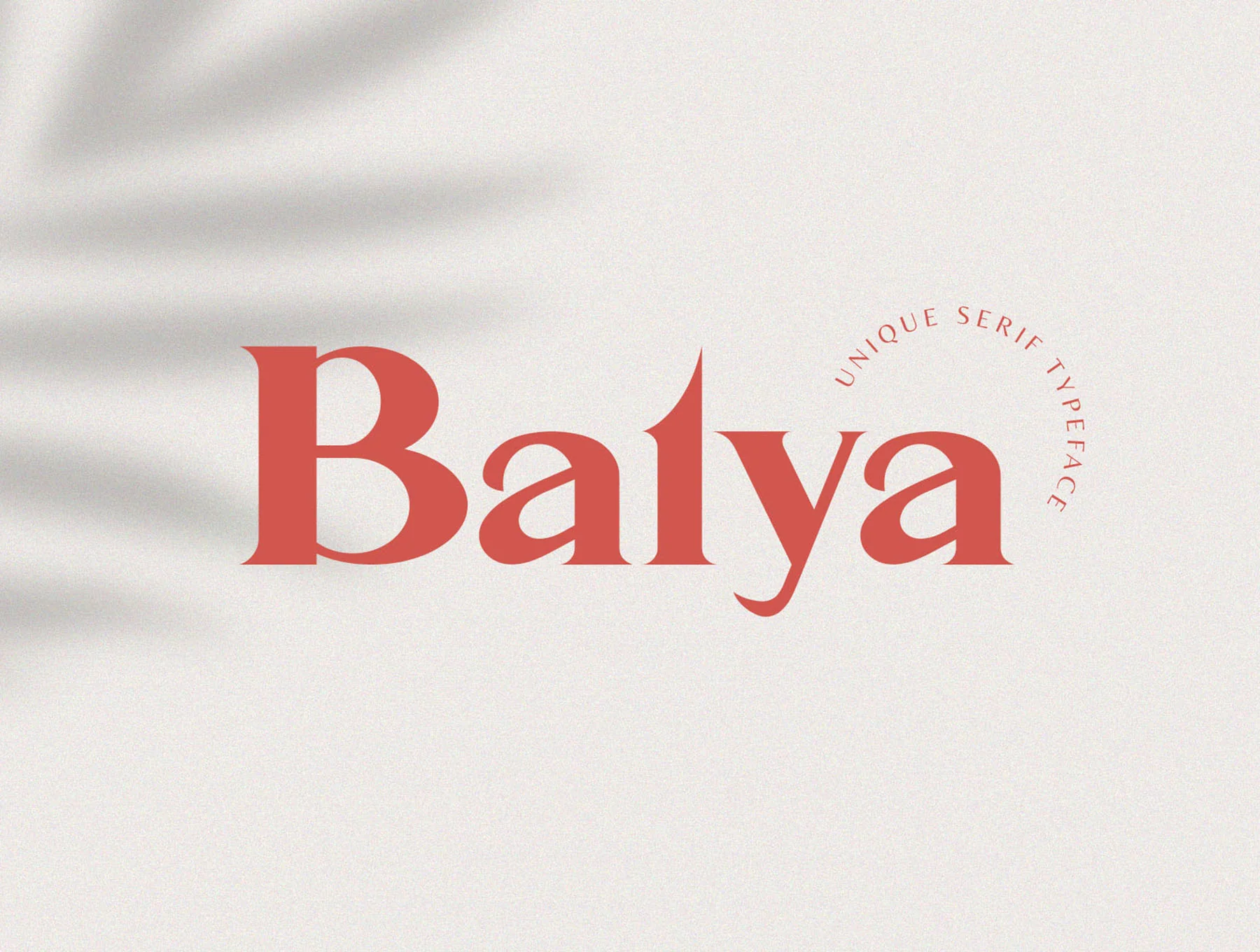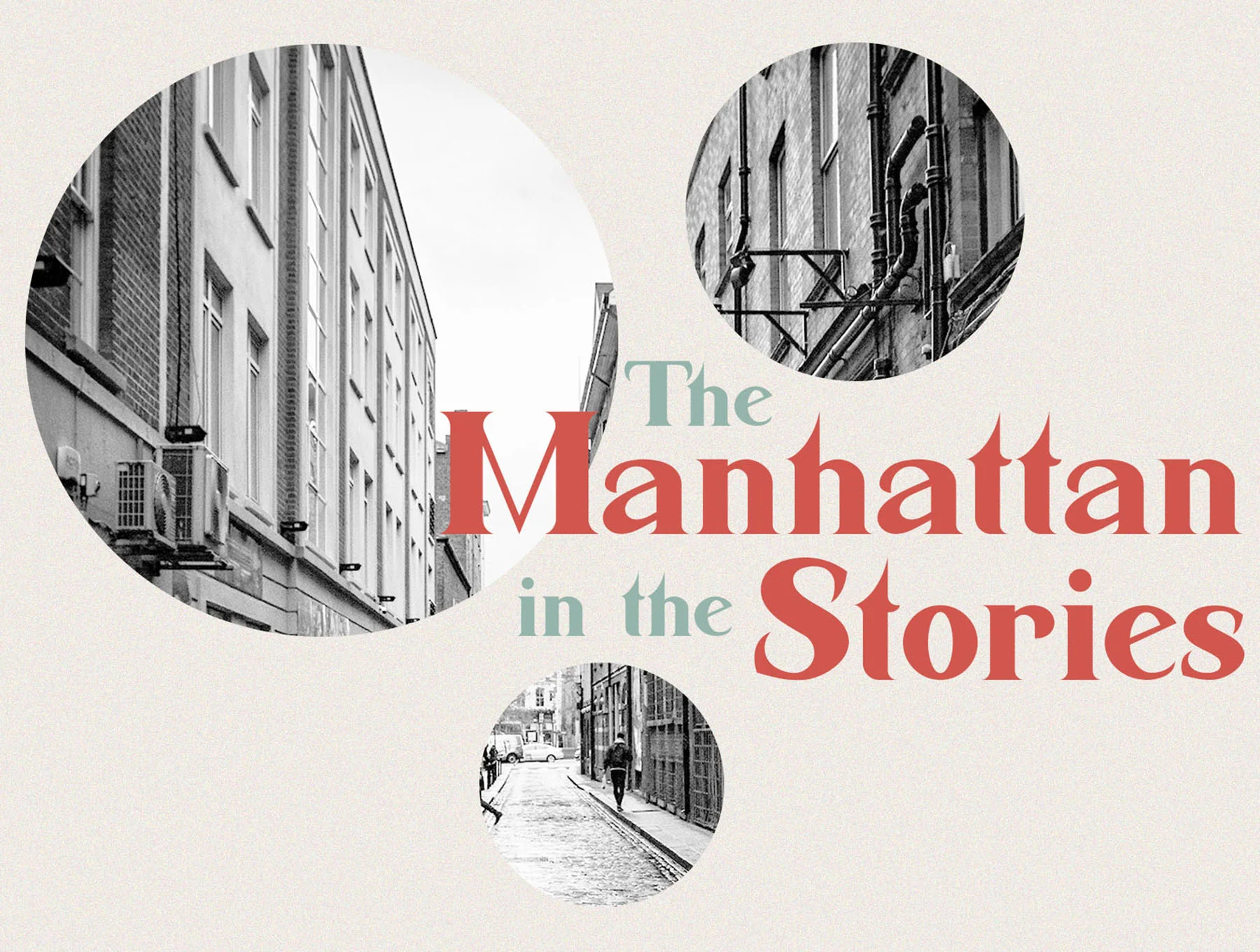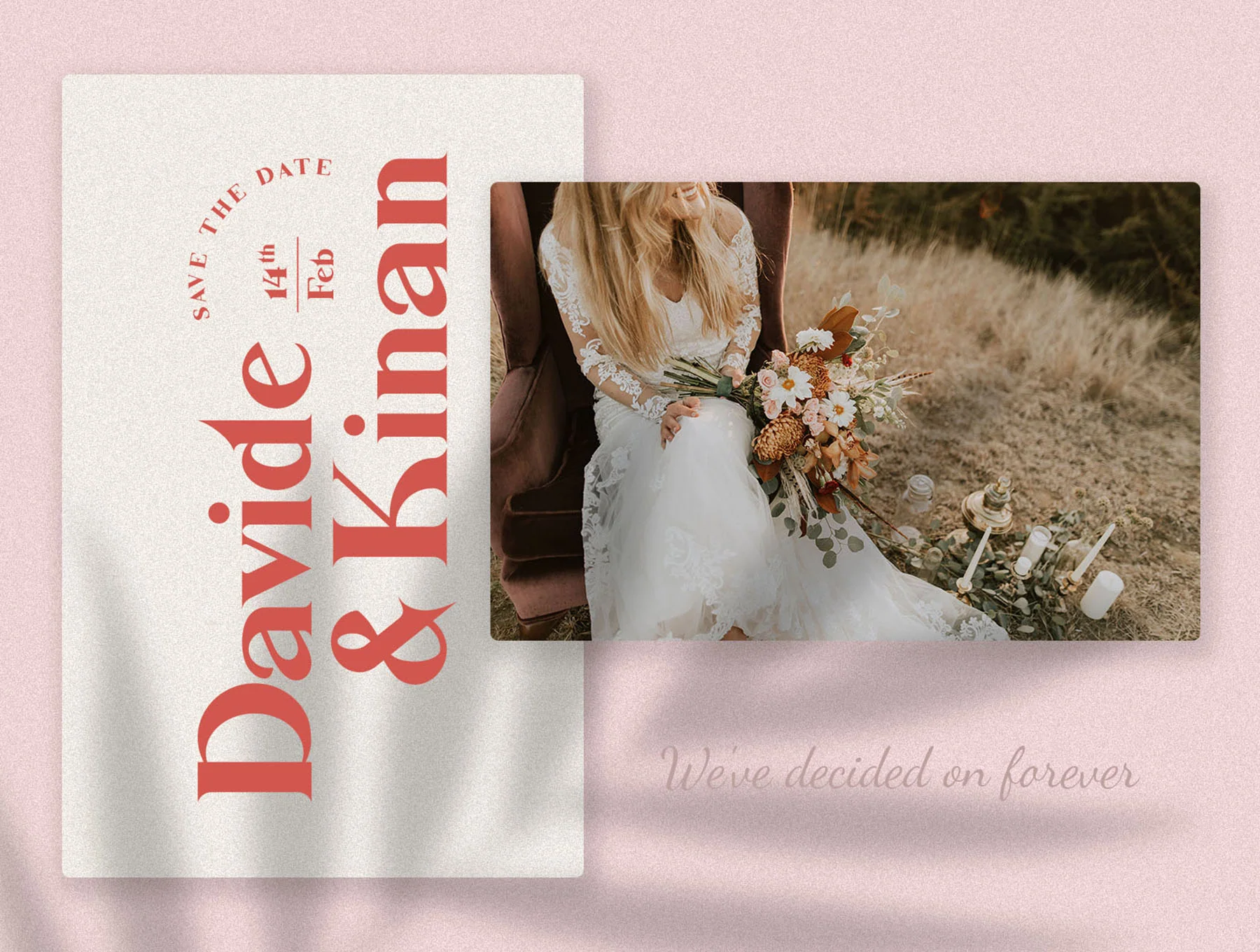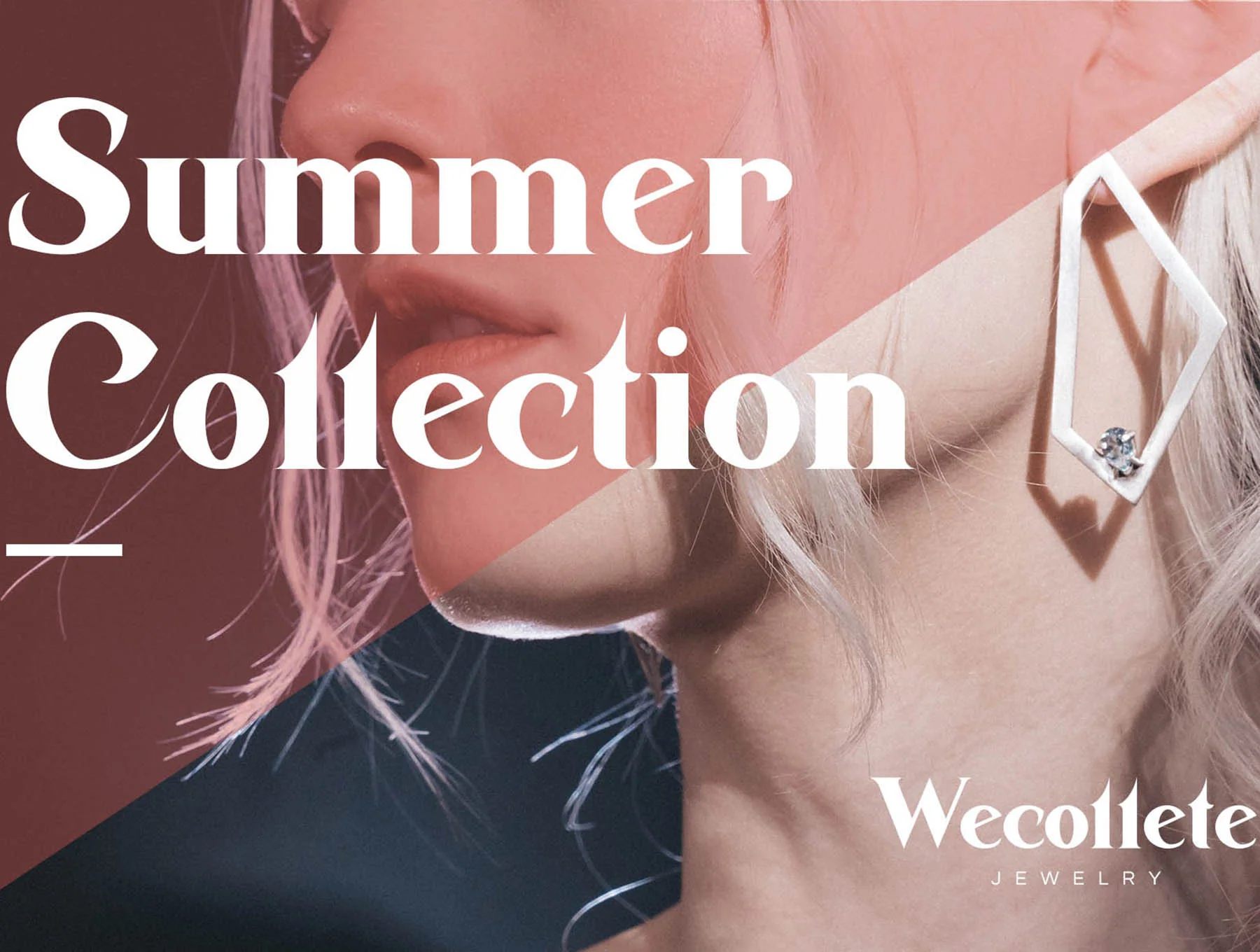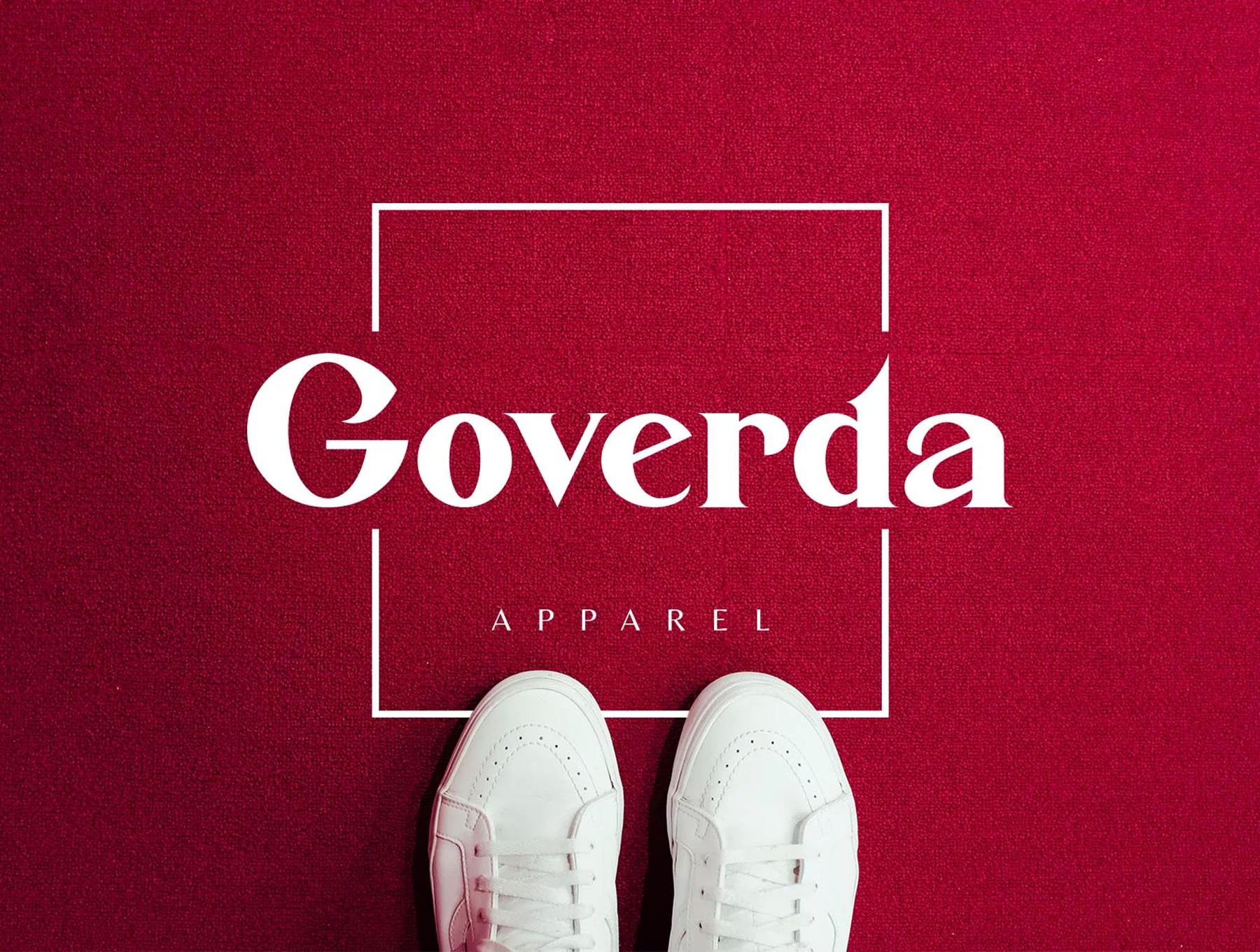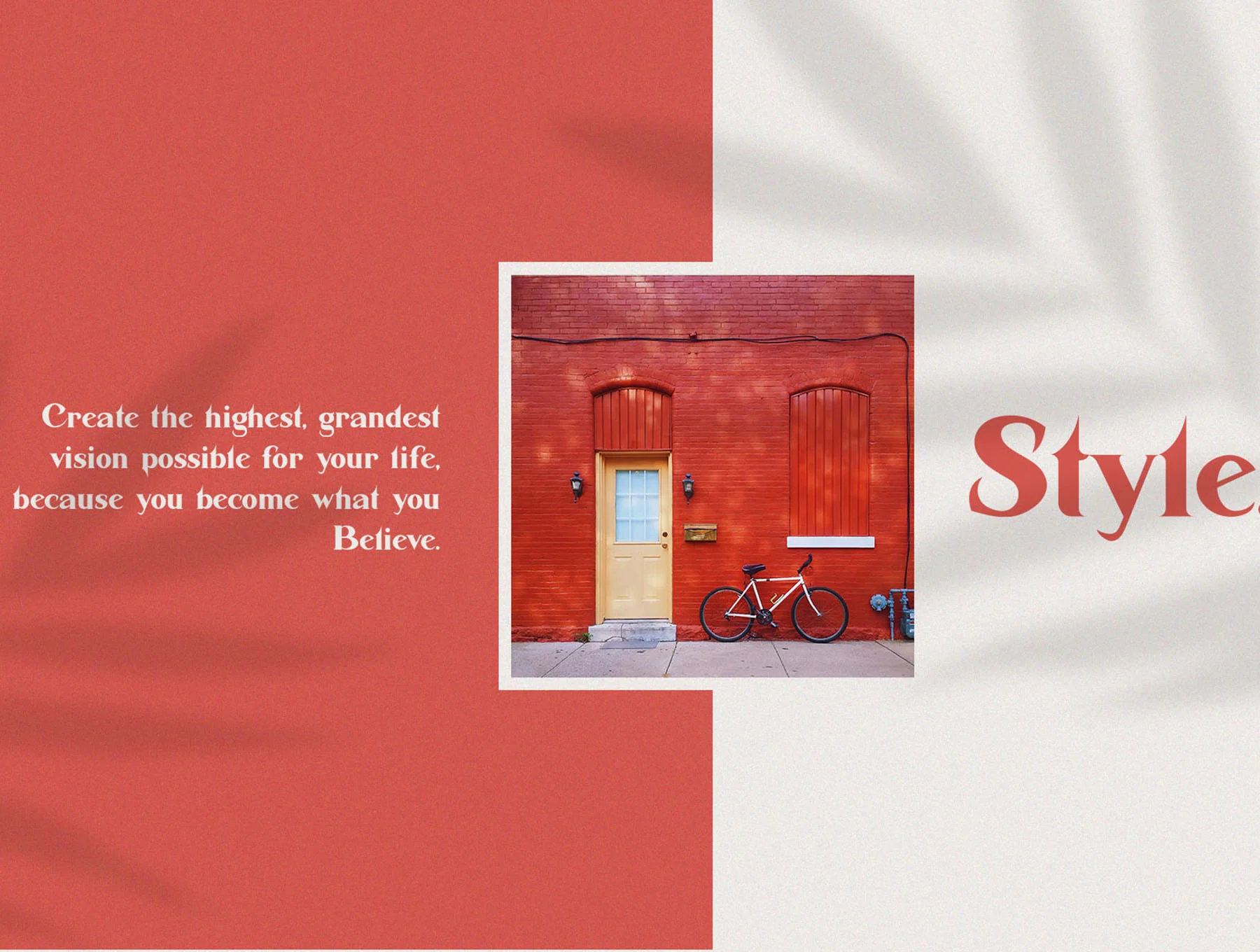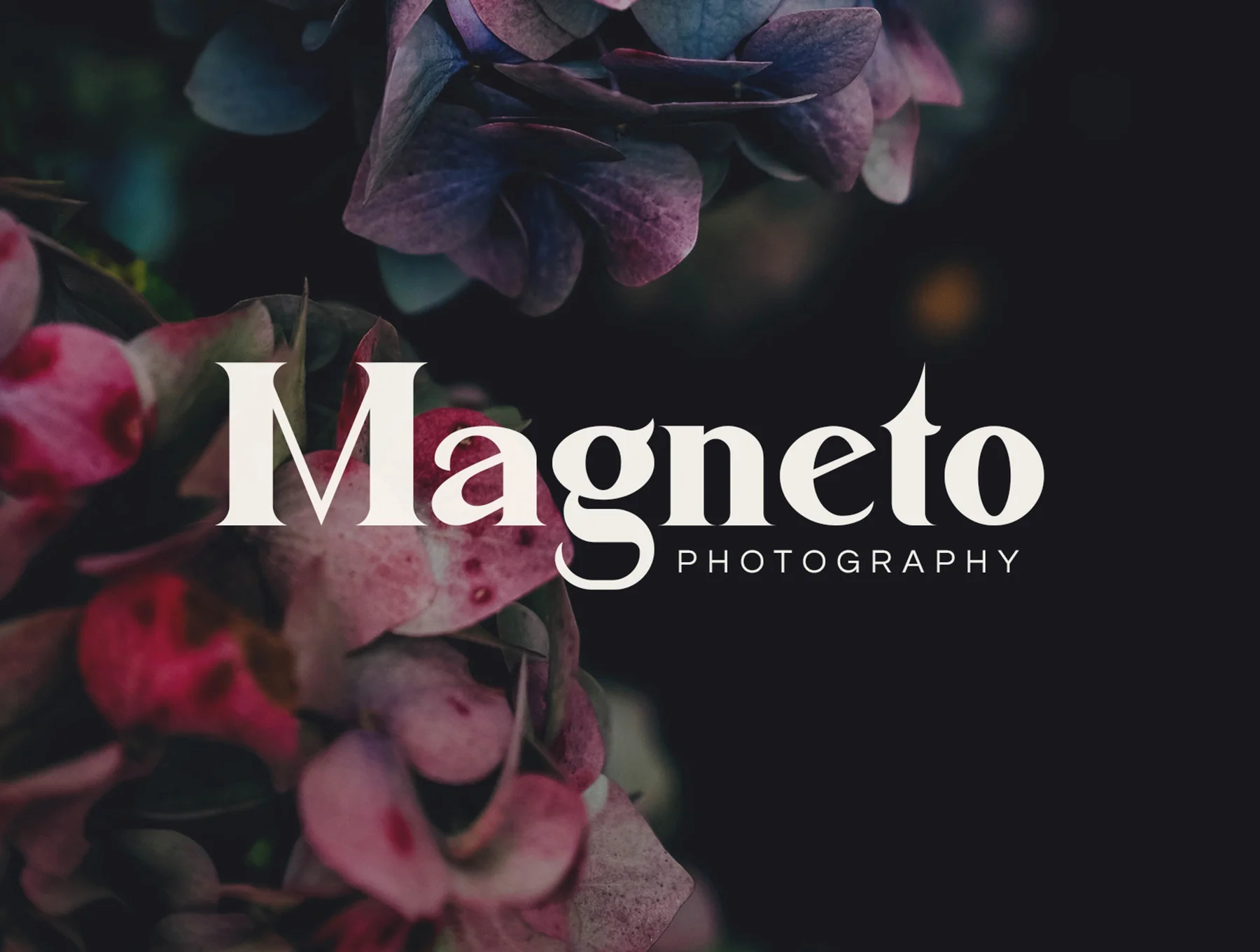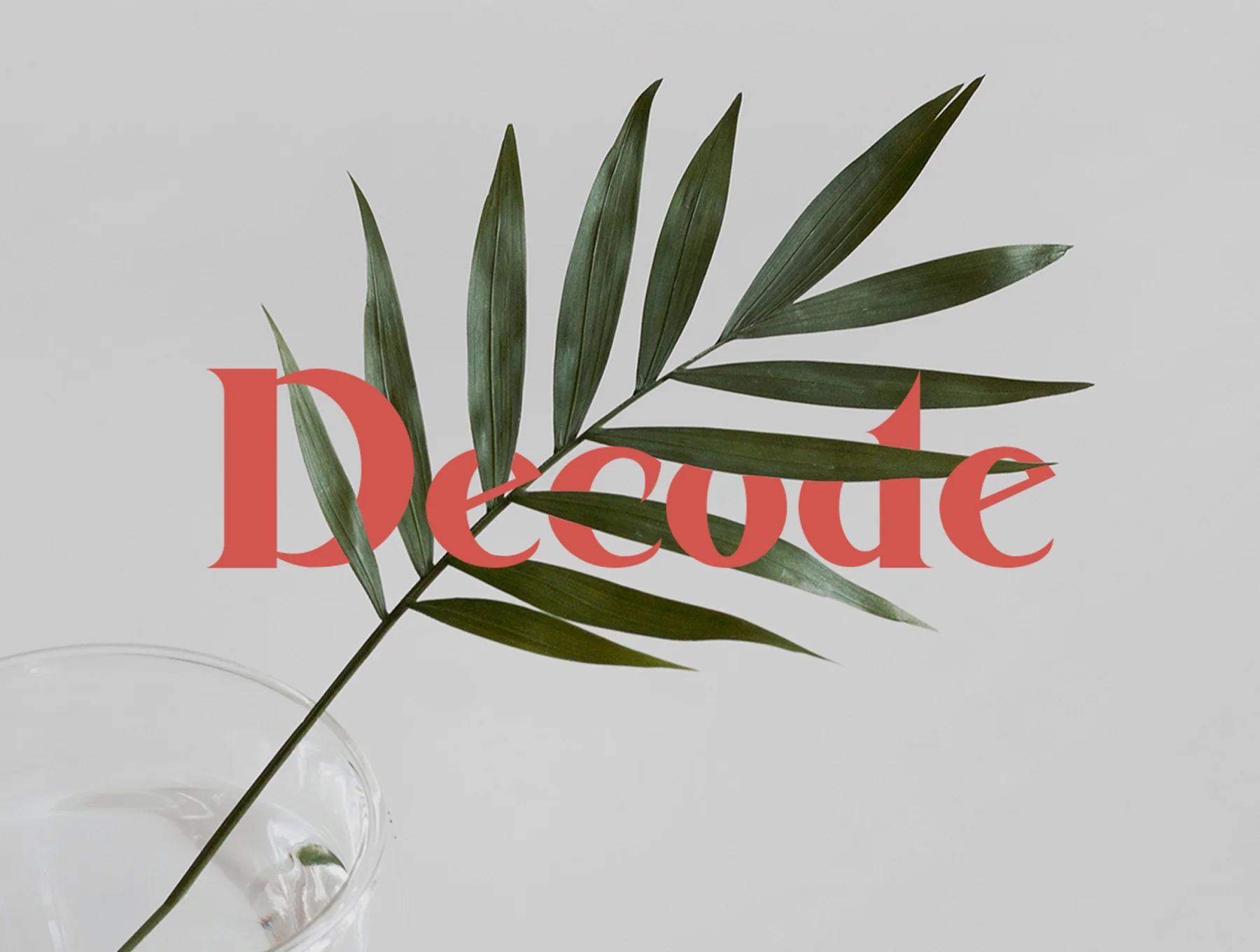
Balya - a classic Typeface
Serif Typeface
Capital letters
Small letters
Optional typographic ligatures
Balya is a refined serif font designed for premium, elegant, and luxurious projects, including hotels, salons, restaurants, cafes, and more. Use Balya Font to give every design a beautiful, charming look.